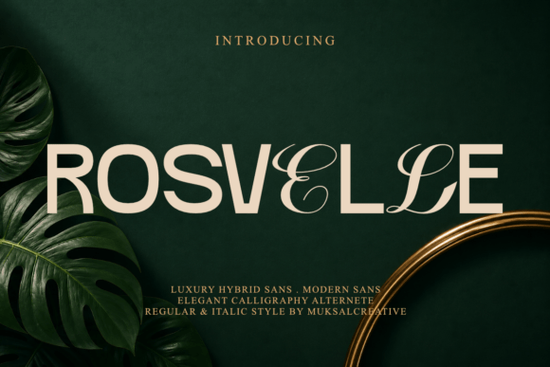
If you are searching for a typeface that balances modern clean lines with a touch of handwriting flair, the Rosvelle Font is worth exploring. It sits in a unique spot between strict geometry and organic flow, making it a versatile choice for creators who want structure without losing personality. Many designers struggle to find a sans serif that doesn't feel too cold or corporate, and this hybrid style offers a solution by blending contemporary letterforms with graceful calligraphy alternates.
This typeface is designed to create a perfect balance between structure and elegance. It delivers a distinctive luxury aesthetic suitable for sophisticated branding projects. The foundation is a refined sans serif, but it is complemented by carefully crafted alternate characters. These alternates introduce a touch of expressive beauty and editorial charm. Whether used subtly or prominently, they allow you to create unique and memorable typography compositions without needing to pair multiple fonts together.
What makes this typeface stand out from standard sans serifs?
Most sans serif fonts focus purely on readability and neutrality. While that is useful for body text, it often lacks the character needed for logos or headlines. This font differentiates itself by including stylistic alternates that mimic hand-lettering within a sans serif framework. This means you get the legibility of a standard font with the custom feel of a script.
When you are browsing for typography, you might consider other similar modern sans serif options like the Orcha collection for pure geometry. However, if your project requires a softer touch, the hybrid nature of this tool provides more flexibility. You can switch specific characters to add flair to a monogram or a main headline while keeping the rest of the text clean and readable. This duality is particularly helpful for small businesses that need one font family to handle both professional communications and creative marketing materials.
Where does this font work best in real projects?
The primary strength of this design lies in its ability to convey luxury and sophistication. It is perfect for luxury branding, beauty products, and fashion campaigns where the visual identity needs to feel premium. Jewelry packaging also benefits from this style because the clean lines suggest quality, while the calligraphic touches suggest exclusivity.
Editorial layouts and wedding stationery are other strong use cases. For wedding invitations, you often need something formal yet romantic. This typeface bridges that gap effectively. If you are working on a project that requires a bit more strictness, you might look at clean alternatives such as styles like Velora. But for occasions that call for emotion and elegance, this hybrid approach is often the better fit. It works well for logos and premium visual identities where standing out on a shelf or a screen is crucial.
How do you access the alternate characters?
Using the special features of this font depends on the software you are using. Most modern design applications like Adobe Illustrator, Photoshop, or InDesign support OpenType features. You can access the glyph panel to view and select the alternate characters manually. This allows you to swap standard letters for the calligraphic versions selectively.
For web designers, ensure you are using the webfont version correctly to maintain these features across browsers. You can view the full character set here at this design resource to see exactly which letters have alternates available. Planning your typography composition ahead of time helps you decide where to place these special characters for maximum impact without making the text look cluttered.
Before adding this to your library, think about your current design stack. Do you already have a script font that pairs well with your existing sans serifs? If not, this hybrid option might save you the trouble of buying two separate families. Also, consider the legibility requirements of your project. While the alternates are beautiful, they should not be used for small body text where clarity is paramount.